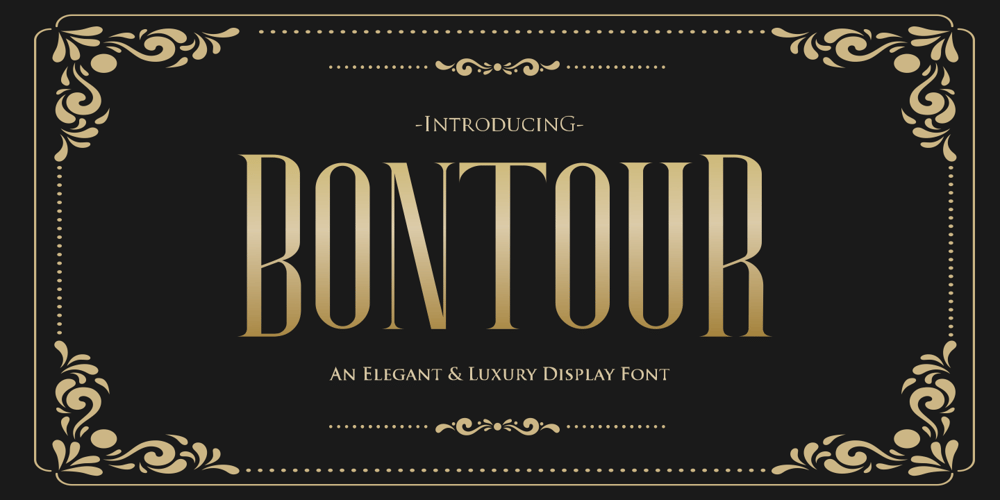
Bontour Font Family was designed by Gumilar Pratama Adiatna and published by Gilar Studio. Bontour contains 1 styles and family package options. ” Bontour” AnElegant & Luxury Display Font Style !!Bontour – An Elegant & Luxury Typeface is my new elegant serif font that will bring in your projects a touch of luxury and style. It’s perfect match for logotypes, branding, wedding monograms and invitations, blog headlines and much more. Flip through all the previews and get inspired like I was while creating this font.A modern take on a Caslon style typeface, It’s got hundreds of characters and ligatures plus all those European letters! Bontour pairs perfectly with a light scripts font or minimal sans serif.What you get?- Letters, Numbers, punctuation- Multilingual support- PUA EncodedUsing Bontour definitely make your text stand out.The Bontour comes includes full set of gorgeous uppercase and lowercase letters, multilingual support, punctuation, and ending numerals .Perfect for DIY projects, greeting cards, labels, quotes, posters, wall art, branding, packaging, websites, photo & photography overlays, signs, window art, scrapbooking, tags and so much more!Check my other Font here : https://gilarstudio.com/Feel Free contact me if u any question.